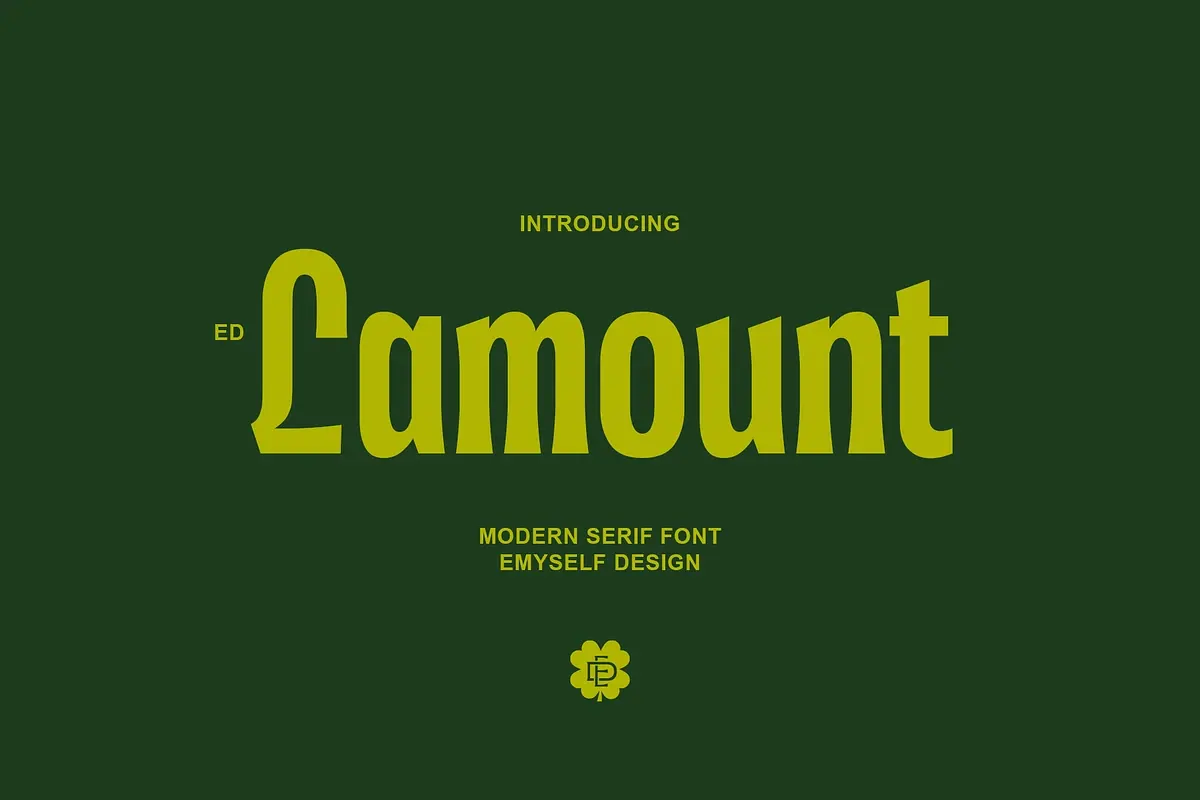
Please note, you must purchase this font for commercial use. However, you can easily download ED Lamount Font Free Download for personal use and testing purposes. ED Lamount Font is a modern and elegant typeface that combines sleek letterforms with a touch of sophistication. Perfect for logos, branding, invitations, and various creative projects, this font adds a refined and professional touch to any design. Its unique style makes it ideal for projects that need both modernity and class, whether you are designing for a high-end brand, an event, or digital content. Download ED Lamount Font Free Download today and explore its potential before opting for a commercial license.